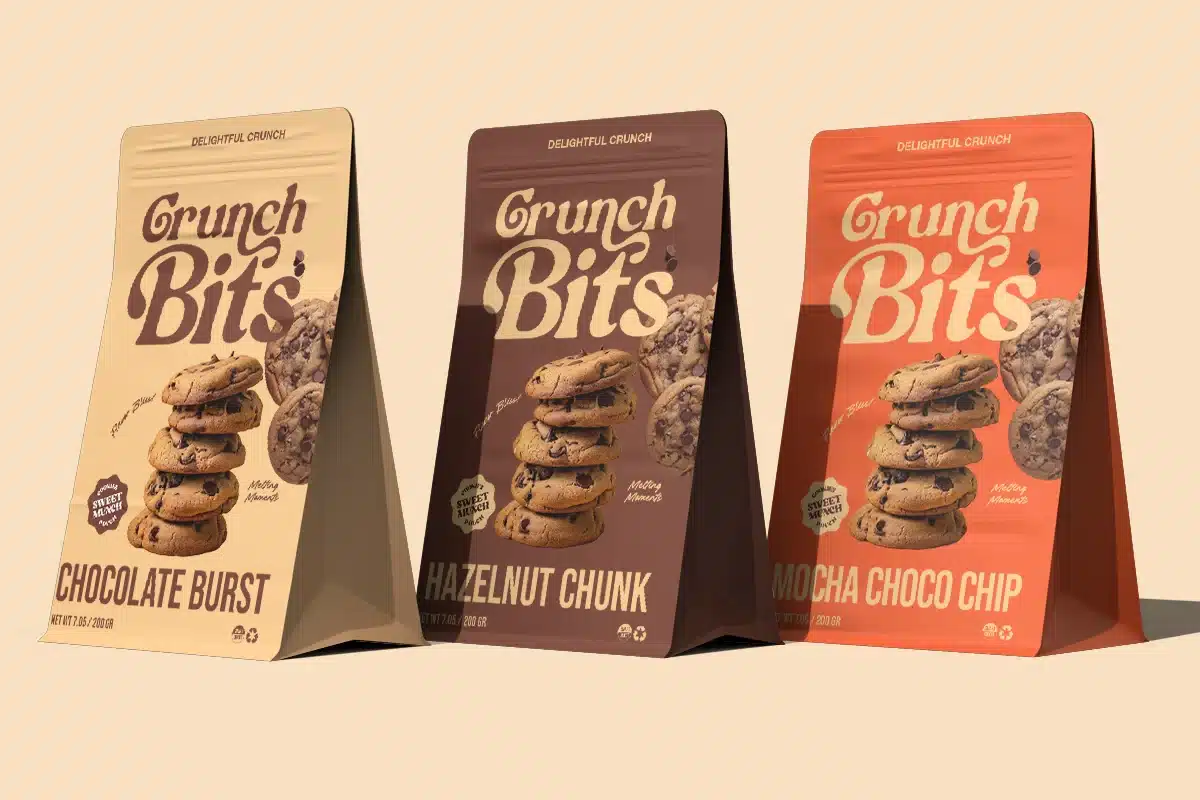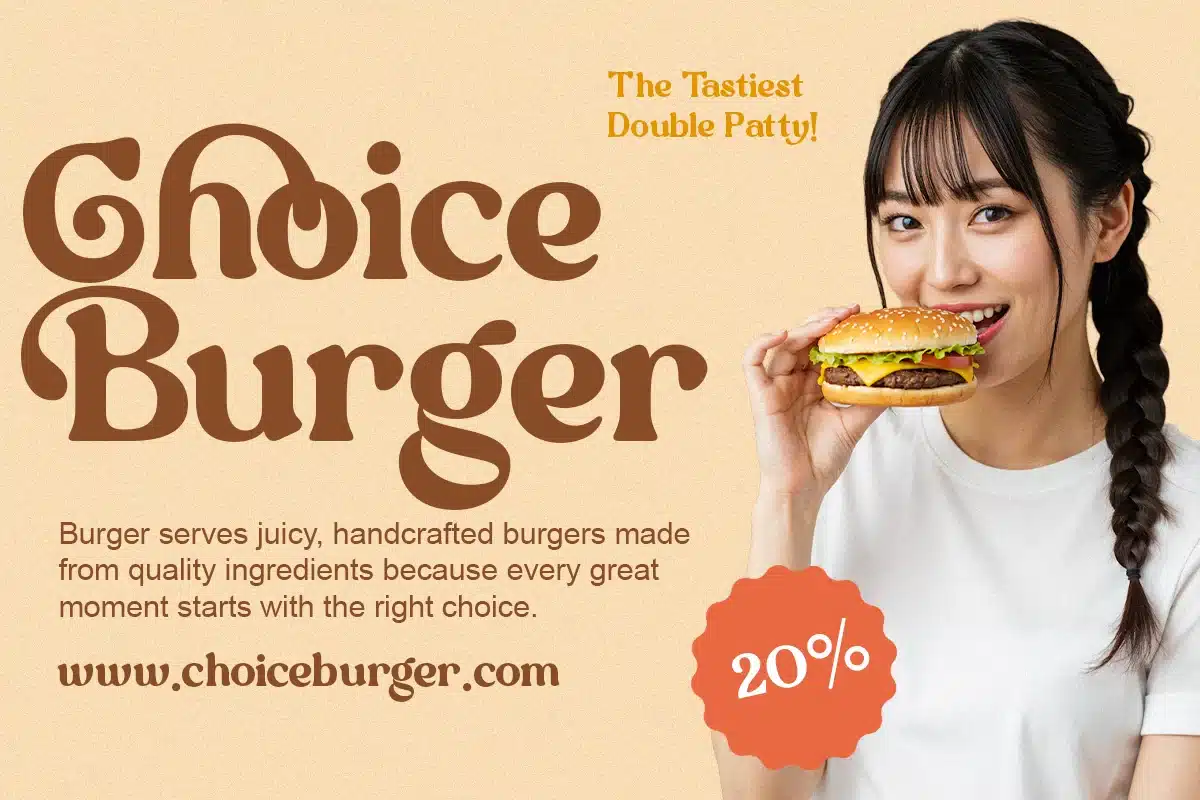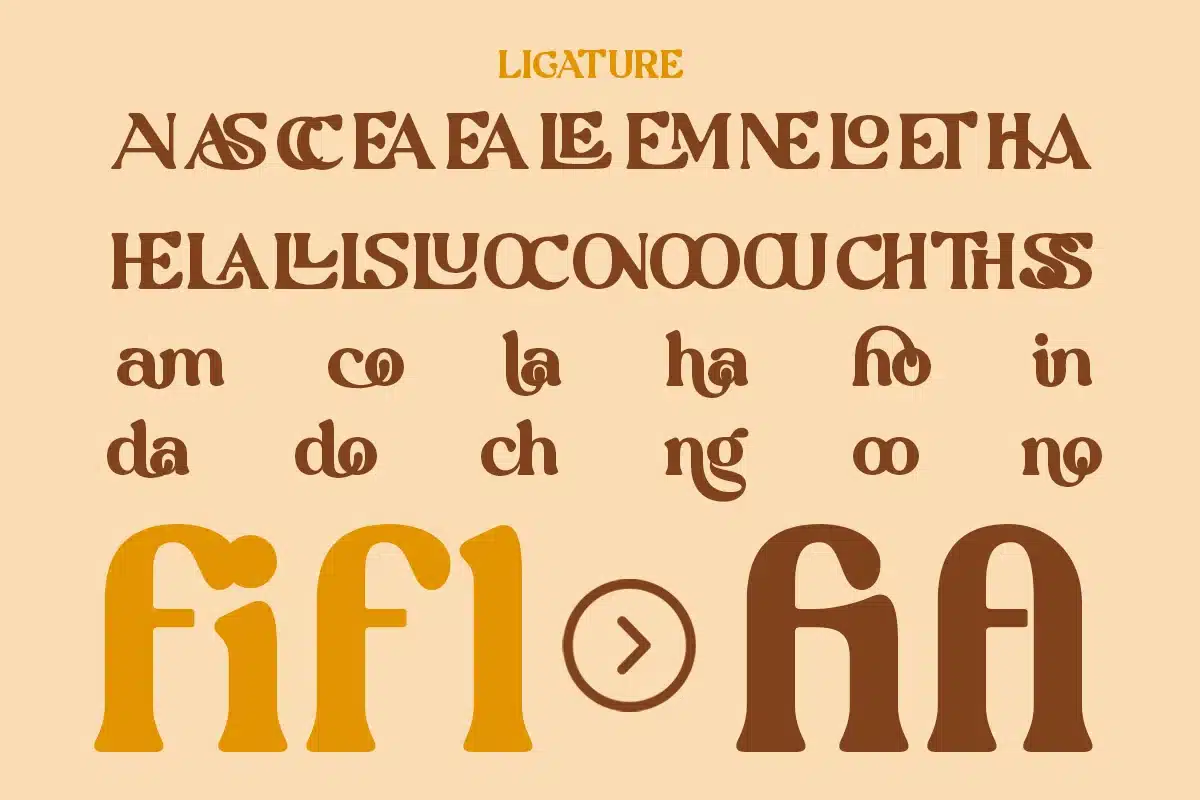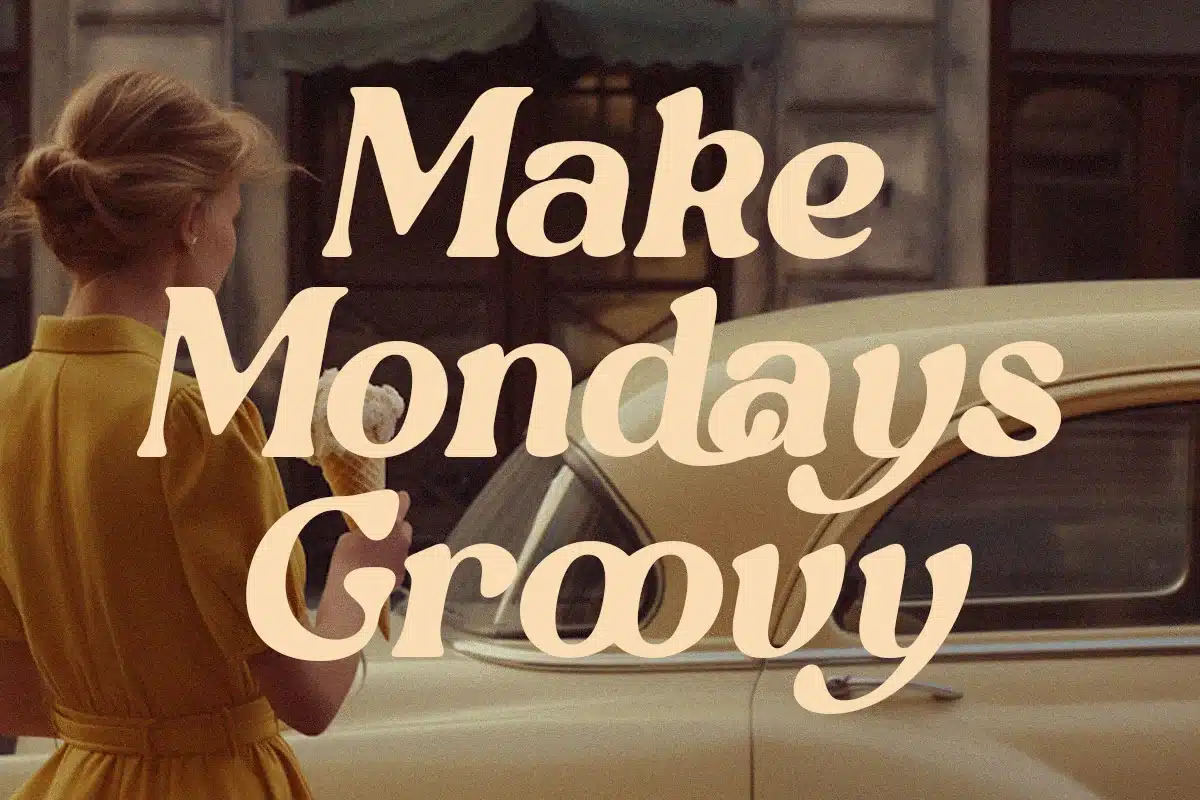
Modern Retro Bold Branding – Qontra Font
Qontra is a retro bold serif typeface inspired by vintage design aesthetics and expressive letterforms. With its strong curves and playful structure, it brings nostalgic charm into modern branding.
Designed to stand out, Qontra is perfect for posters, logos, packaging, and retro-themed visuals. Its bold personality and decorative style make it ideal for creatives who want eye-catching typography.
Built for designers who seek expressive, vintage, and high-impact serif fonts.
Features
- Regular & Italic
- Uppercase & lowercase
- Alternates & ligatures
- Bold serif structure
- Decorative swashes
Vintage branding, retro logos, poster design, packaging, signage, creative display typography